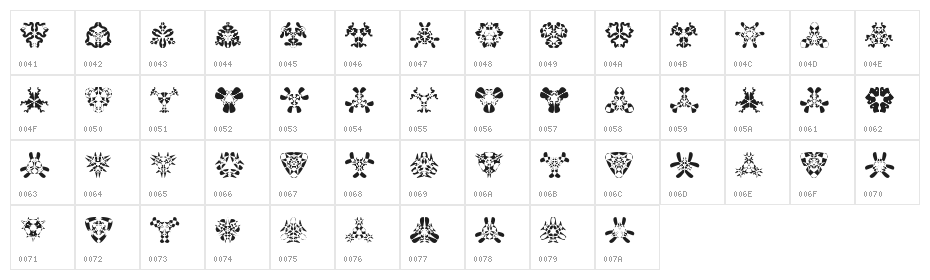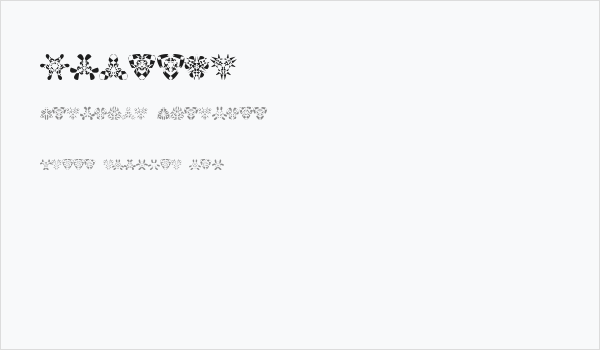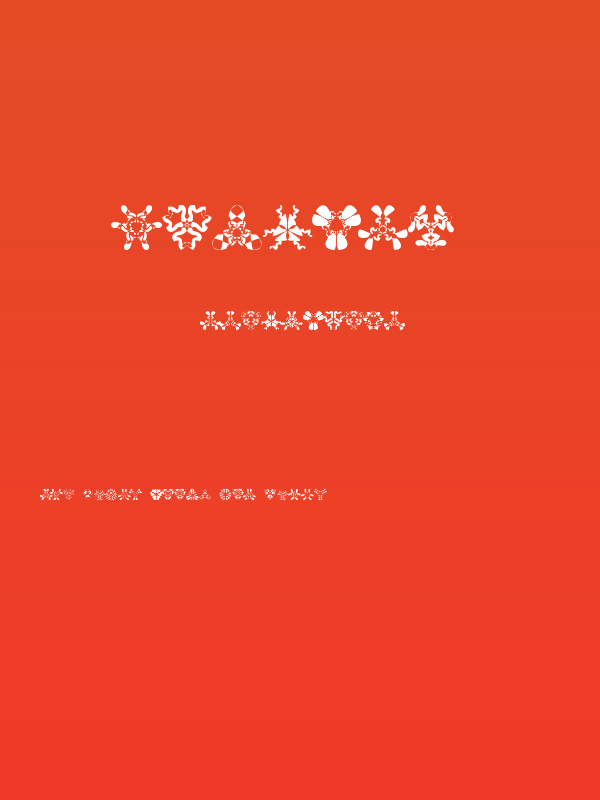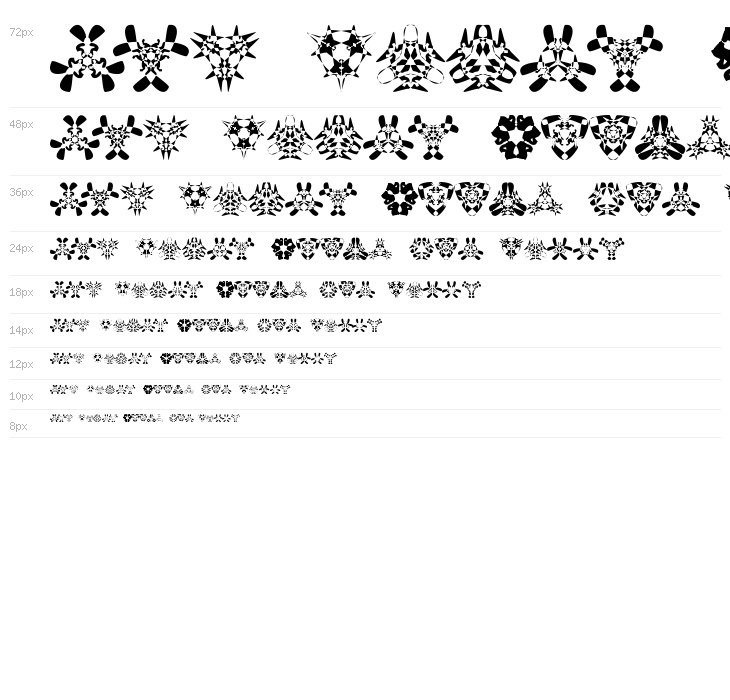
LaMorte7 Font
LaMorte7 Description
This is not a valid font. The image contains a series of abstract, symmetrical shapes that resemble intricate patterns or decorative motifs. These designs are more akin to artistic symbols or ornaments rather than recognizable alphanumeric characters. Each shape is unique, featuring complex arrangements of geometric forms that create a visually striking effect. The overall appearance is more suitable for decorative purposes rather than textual representation.
| Use Case | Decorative elements, Artistic projects, Graphic design. |
| Proposed Projects | These designs could be used in artistic projects, such as creating borders, backgrounds, or decorative elements in graphic design. They might also be suitable for use in textiles, wallpapers, or as part of a logo design that requires a unique, ornamental |